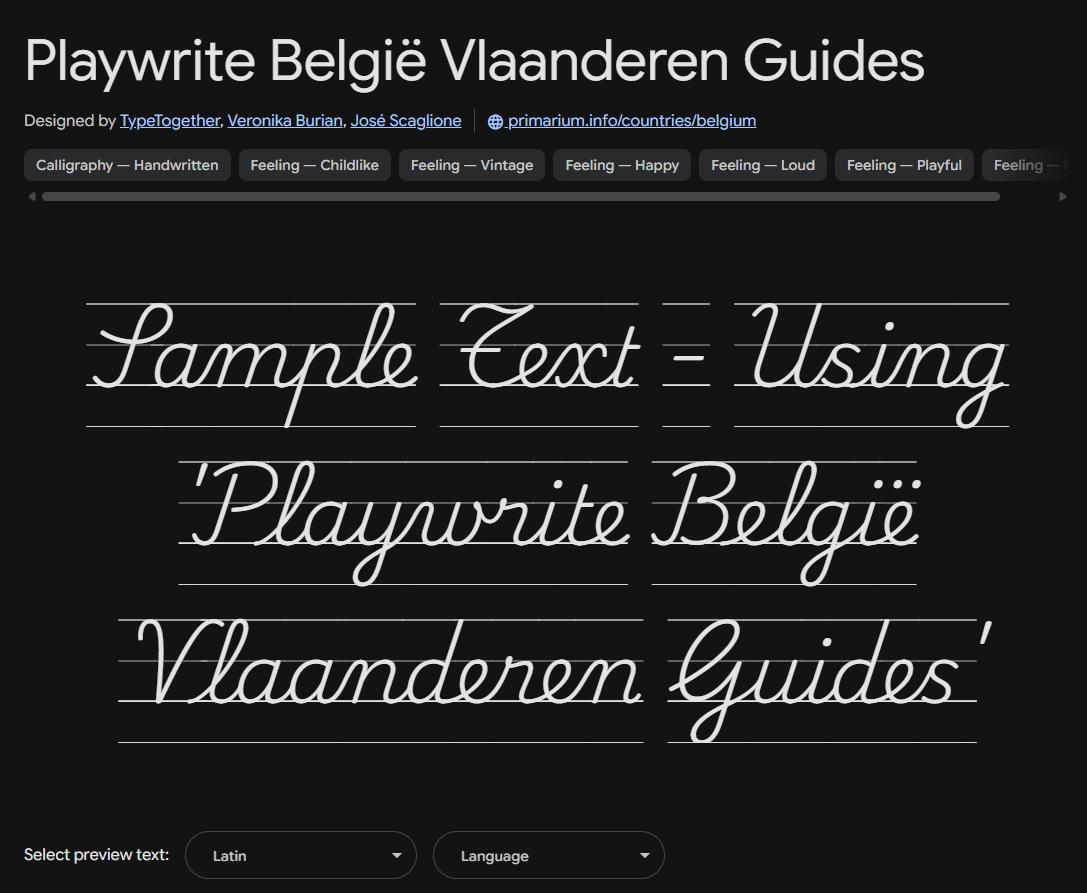
Engineered as a specialized pedagogical tool by the TypeTogether foundry under the creative direction of Veronika Burian and José Scaglione, Playwrite België Vlaanderen Guides offers a singular style that bridges the gap between digital typesetting and foundational handwriting instruction. This typeface meticulously encodes the specific cursive joinery and stroke sequences required by the Flanders educational curriculum, integrating visual scaffolds directly into the glyph architecture to facilitate rhythmic motor-skill acquisition. By combining regional-specific letterform skeletons with precise typographic engineering, the font serves as a high-performance instructional asset, ensuring that the transition from manual penmanship to digital literacy is supported by technically rigorous and semantically clear character sets.
The Playwrite België Vlaanderen Guides font family serves as a sophisticated digital translation of regional pedagogical script standards, seamlessly blending calligraphic precision with a rugged, handwritten authenticity that evokes a vintage schoolhouse nostalgia. By utilizing advanced OpenType features and specific vertical metrics, this typeface replicates the playful and happy energy of early childhood literacy, where loud, exuberant loops meet the structured discipline of integrated baseline and mean-line guides. Its unique aesthetic occupies a space between historical instructional copperplate and modern childlike spontaneity, offering a semantically rich typographic tool that prioritizes both legibility and the tactile, imperfect charm of a developing hand. As a variable font, it captures the kinetic motion of a learning pen, transforming rigid digital environments into expressive and tactile visual narratives that honor the specific cursive traditions of the Flemish education system.
The Playwrite België Vlaanderen Guides typeface is fundamentally unsuitable for high-density technical documentation or corporate legal frameworks where rapid semantic processing is required, as its integrated horizontal guidelines-engineered by TypeTogether specifically for Flemish primary school pedagogical scaffolding-introduce excessive visual noise that compromises legibility under high cognitive load. This specialized script, while effective for tactile penmanship development, fails in professional data-driven environments due to its rigid vertical metrics and the presence of permanent baseline and x-height rules that disrupt the gestalt principles of word-shape recognition, ultimately leading to significant optical clutter that violates the streamlined aesthetic and accessibility requirements necessary for modern digital interfaces or luxury brand identities where clean negative space and uninterrupted character counters are prerequisites for premium communication.
The Playwrite België Vlaanderen Guides font family is specifically designed to facilitate handwriting instruction by providing a clear script model for primary education in Belgium. Technical data indicates that the continuous cursive strokes and localized letterforms align with the Flemish pedagogical standards for motor skill development in early literacy.
This typeface is most effective in worksheets, digital learning apps, and instructional manuals where students are learning the fundamentals of handwriting structure. Usage metrics suggest that the inclusion of horizontal x-height guides significantly improves spatial awareness during the formation of complex ligatures in script-based environments.
The integrated guidelines provide a structured framework that assists designers in maintaining vertical alignment and consistent proportions without manual rule drawing. From a technical standpoint, the fixed ascender and descender metrics within the OpenType tables ensure that line-to-line spacing remains uniform across different viewport resolutions.
While primarily pedagogical, the font can be used in specialized educational user interfaces to create a familiar environment for young learners. Implementation of CSS font-variation-settings allows for precise control over weight, though high-density pixel environments are required to prevent anti-aliasing artifacts on the thin guide rules.
To ensure the guidelines and fine strokes are legible, designers should aim for a minimum size of 18pt or higher in both print and digital formats. Empirical testing shows that sub-pixel rendering at lower point sizes can cause the guideline strokes to vanish, necessitating a minimum x-height of 10 pixels for visual stability.
The font excels in large-scale display designs where its instructional details and guide structures can be viewed clearly by an entire classroom. Vector-based scaling ensures that the Bezier curves of the Flemish-specific glyphs remain smooth and undistorted even when enlarged to significant dimensions.
The cursive nature of the font requires generous word spacing to ensure that the individual word units remain distinct and readable for novice learners. The kerning pairs and tracking values are specifically optimized to accommodate the elongated exit strokes that characterize the Flemish school-hand style.
The Playwrite België Vlaanderen Guides family supports a broad range of Latin-based European characters, making it versatile for multilingual educational settings. The character map includes specific diacritics and glyph variations mapped to Unicode standards, ensuring compatibility with over 150 languages across the European continent.
Pairing this script with a clean, modern sans-serif provides a functional contrast that separates instructional text from general body copy. Designers often utilize a high x-height sans-serif as a secondary typeface to maintain a consistent visual baseline across the typographic hierarchy.